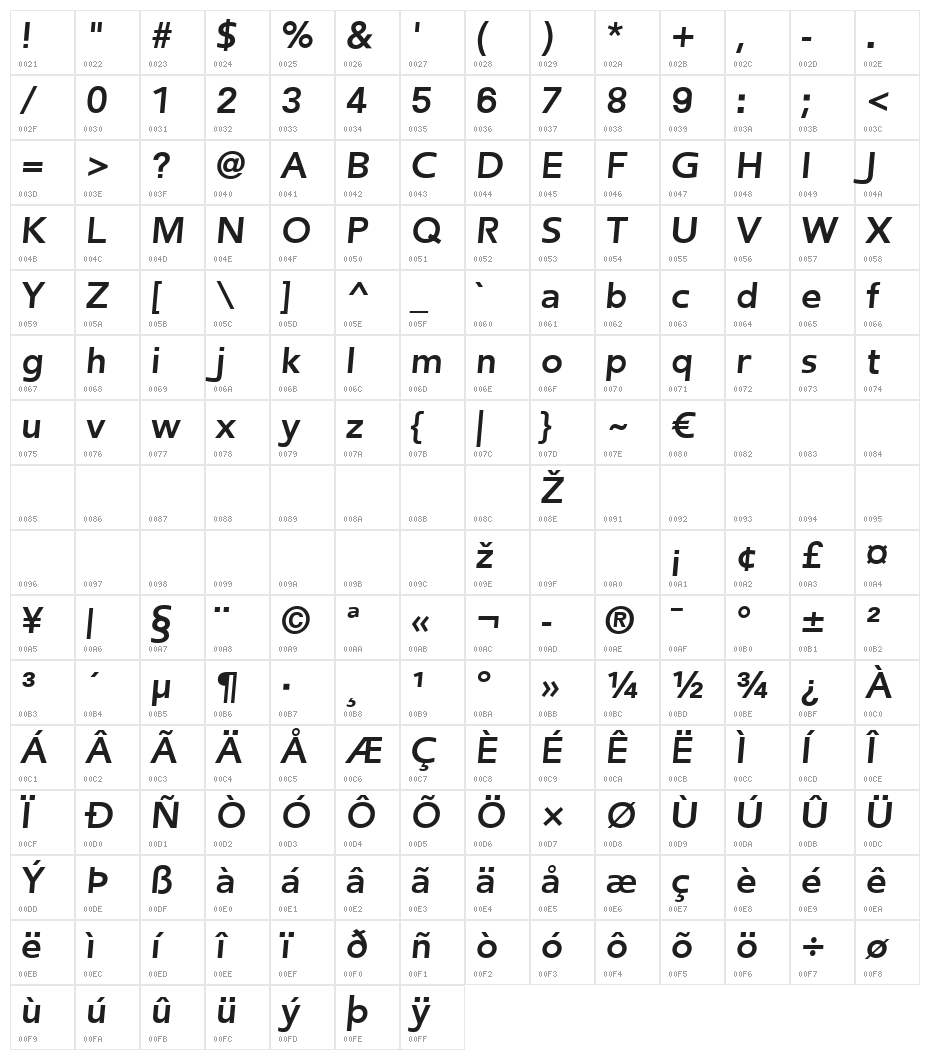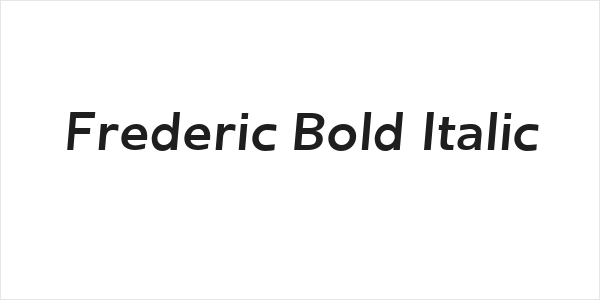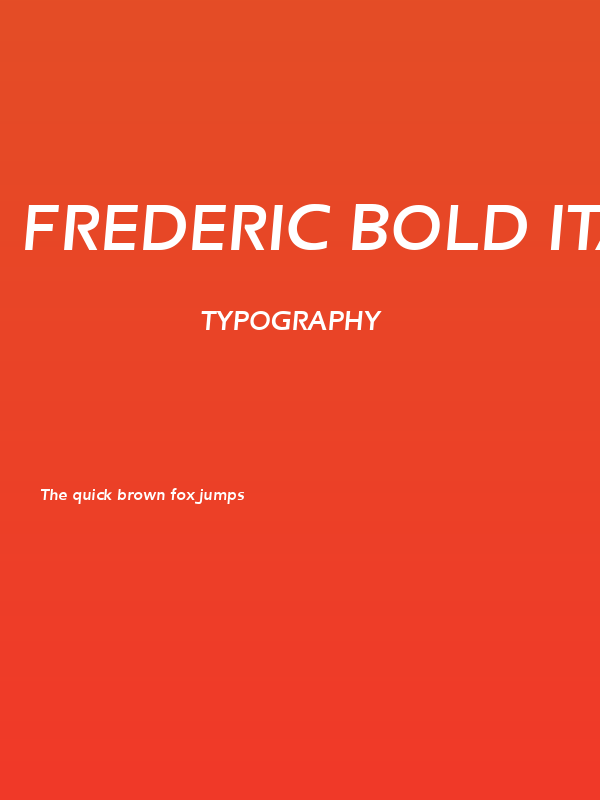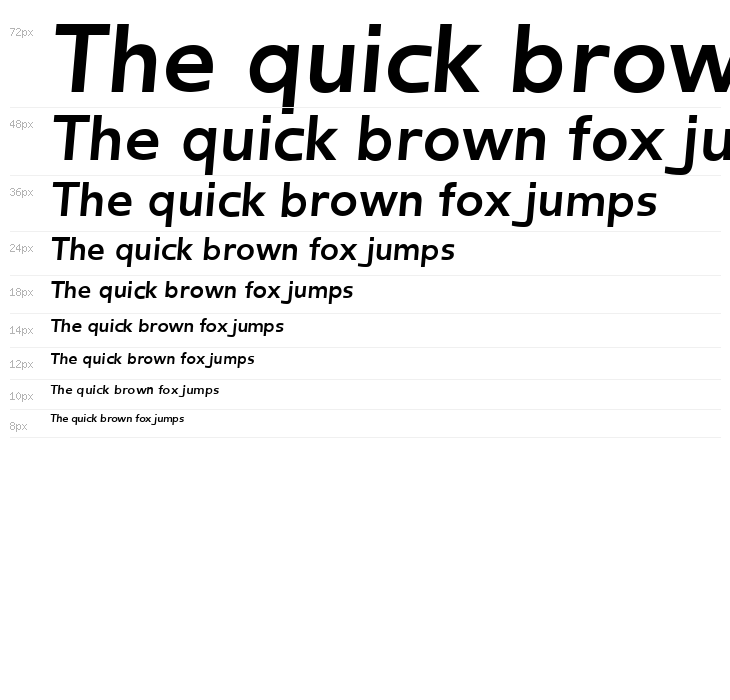
Frederic Bold Italic Font
Frederic Bold Italic Description
This font exhibits a bold and italicized style, characterized by its clean and modern appearance. The letters are slightly slanted, giving a dynamic and forward-moving feel. The strokes are consistent in thickness, providing a uniform look across all characters. The uppercase and lowercase letters are well-proportioned, with a slight emphasis on the curves, especially noticeable in letters like 'a', 'e', and 'g'. The numerals are clear and distinct, making them easily readable. Special characters are well-defined, maintaining the overall aesthetic of the font.
| Proposed Projects | Ideal for branding projects, modern web design, and advertising materials where a bold statement is needed. |